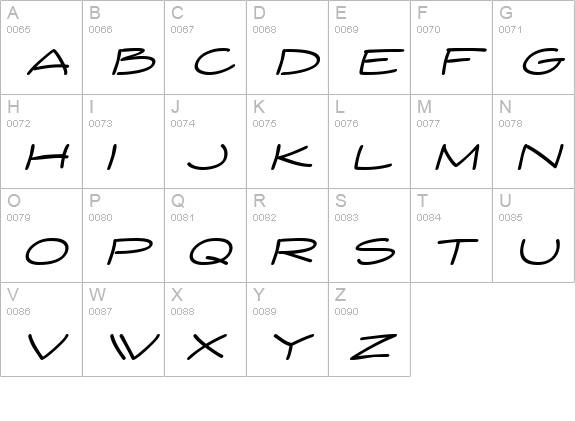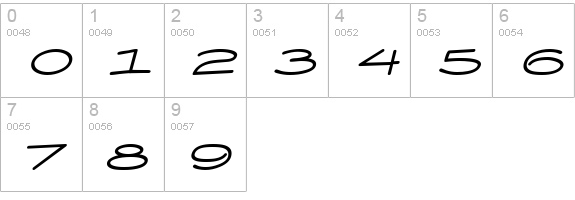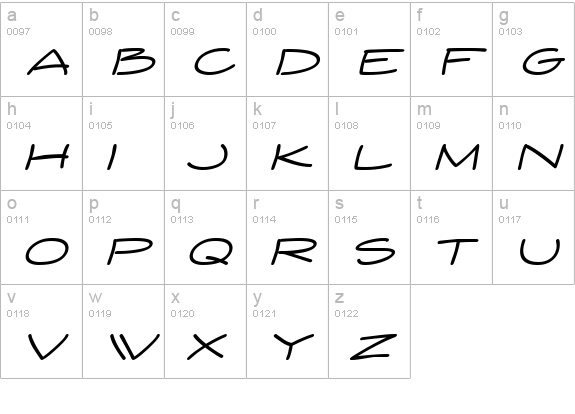
Yuba BTN Expanded Oblique Font Details
Yuba BTN Expanded Oblique is a distinctive, extended-width, italic variant in the Yuba typeface family \xE2\x80\x94 well suited to design and typography projects.
The Yuba BTN Expanded Oblique font exudes a sense of modernity and sophistication with its sleek, slanted design. Its expanded letterforms give a bold and dynamic appearance, making it perfect for headlines, titles, and other display purposes. The oblique style adds a touch of elegance to any design, while maintaining a sense of visual interest. This versatile font is a must-have for designers looking to make a statement with their typography. Whether you're working on a branding project, poster design, or website layout, Yuba BTN Expanded Oblique will add a touch of flair and personality to your work. The best part? Yuba BTN Expanded Oblique is available for free download at FontsMarket.com. Now you can elevate your designs without breaking the bank. Don't miss out on this opportunity to enhance your creative projects with this stylish and impactful font. Download Yuba BTN Expanded Oblique today and take your designs to the next level!